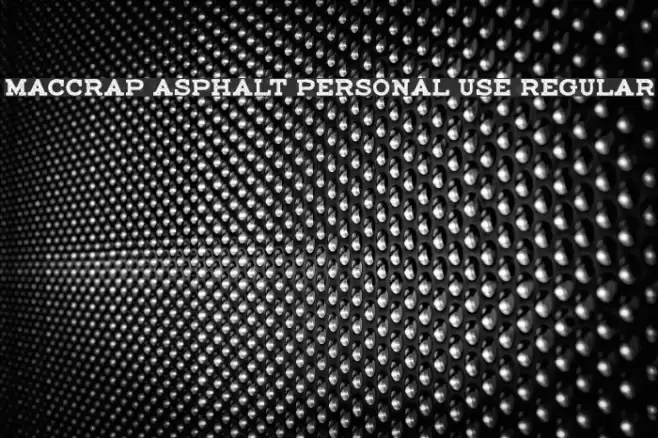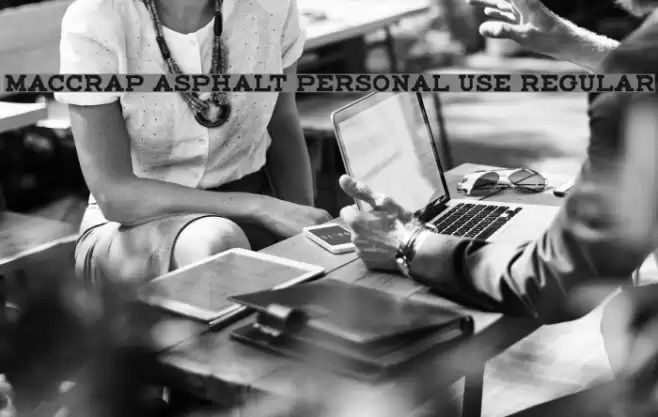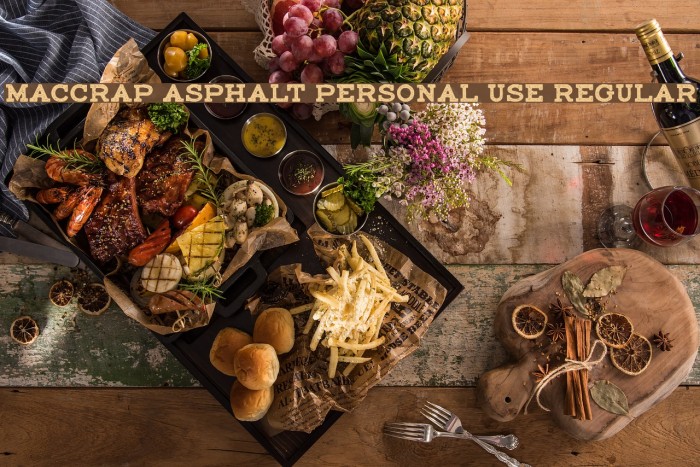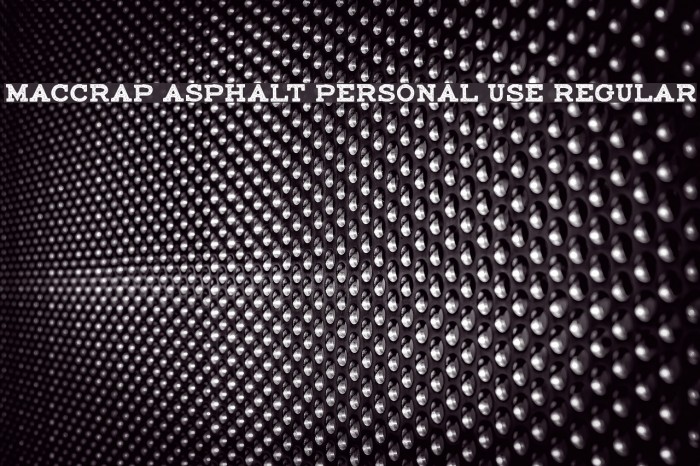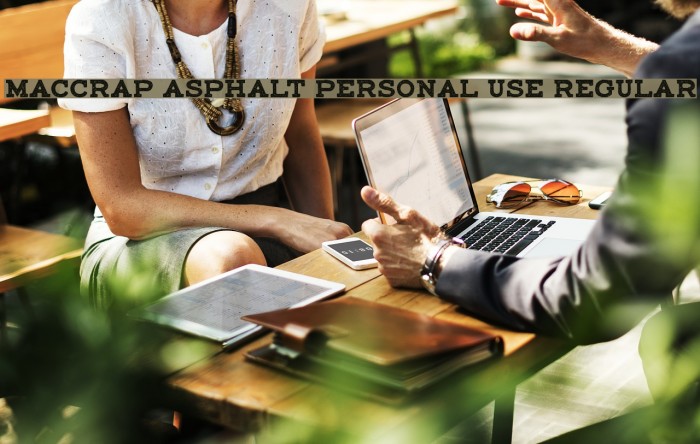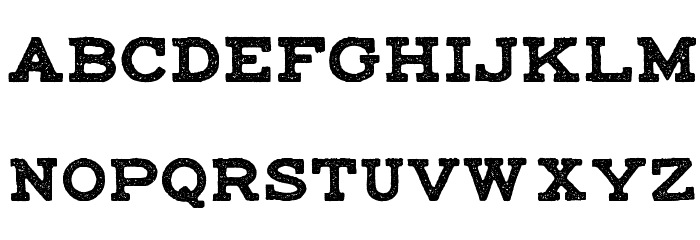
maccrap asphalt personal use Regular Font
maccrap asphalt personal use Regular Description
This font features a bold, textured style with a distressed, grunge-like appearance. The uppercase letters are prominent and have a rugged, worn-out look, making them ideal for designs that require a vintage or industrial feel. The texture within each character adds depth and interest, creating a unique visual effect. The letters are evenly spaced, maintaining readability despite the intricate detailing. This font is perfect for projects that aim to convey a sense of nostalgia or edginess.
A bold, textured font with a distressed, vintage appearance from Distorted Eroded fonts.
- Proposed Projects: Ideal for posters, album covers, branding for vintage-themed products, and any design needing a rugged, industrial look.
- Overall Style: Vintage